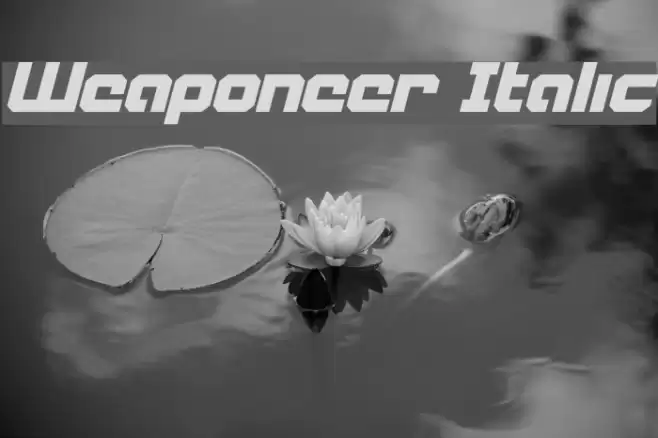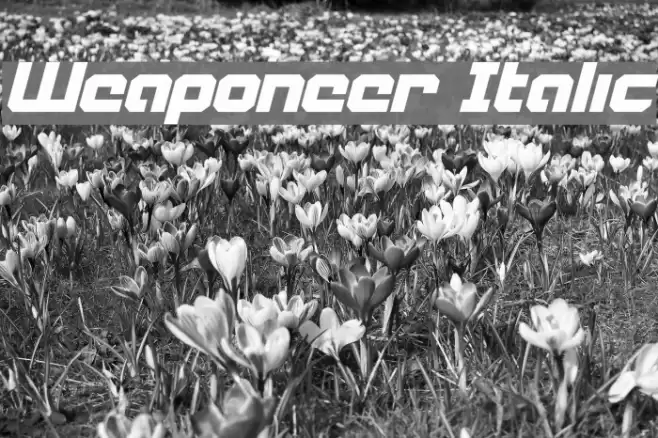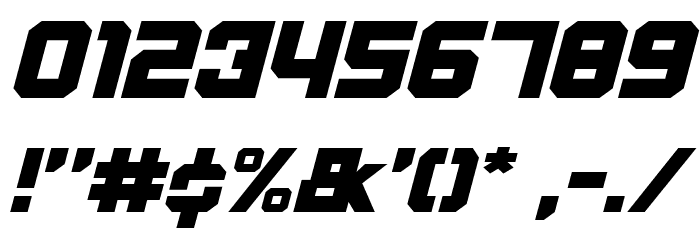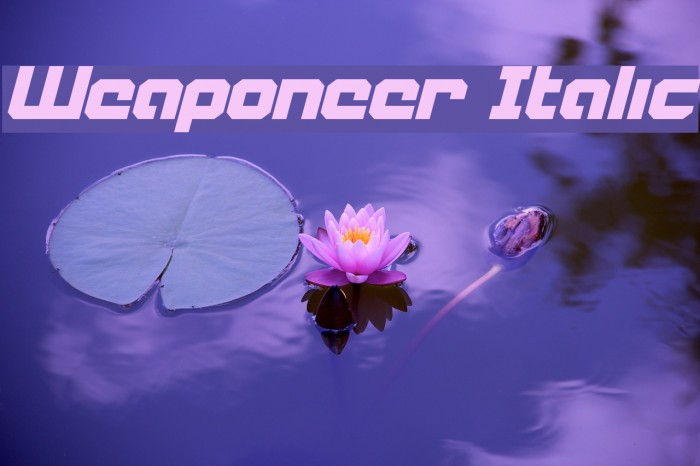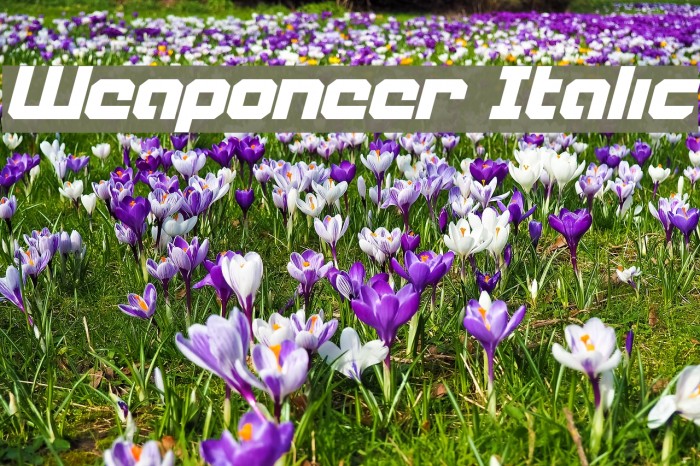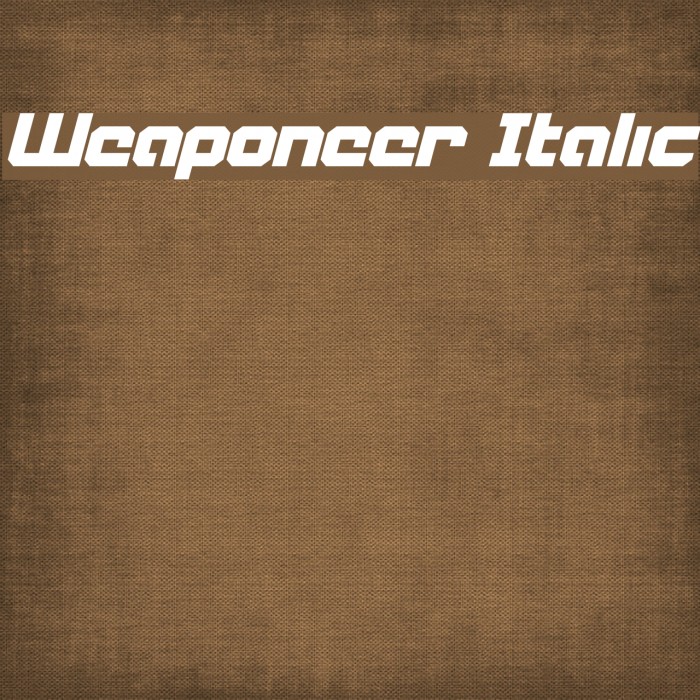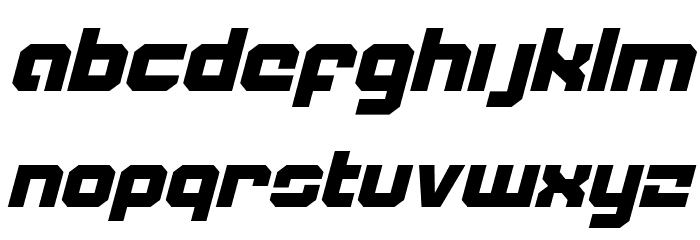
Weaponeer Italic Font
Weaponeer Italic Description
This font features a bold and dynamic style with a strong geometric influence. The characters are sharply angled, giving a sense of motion and energy. The uppercase and lowercase letters maintain a consistent slant, enhancing the italicized effect. The numbers and special characters are designed with the same angular precision, ensuring uniformity across all glyphs. The font's bold weight and condensed width make it particularly striking, suitable for attention-grabbing headlines or impactful logos. Its modern and futuristic aesthetic is ideal for projects that require a bold statement.
A bold, geometric italic font with a dynamic and modern style from Sci-fi fonts.
- Proposed Projects: Ideal for sports branding, video game titles, tech company logos, and dynamic posters.